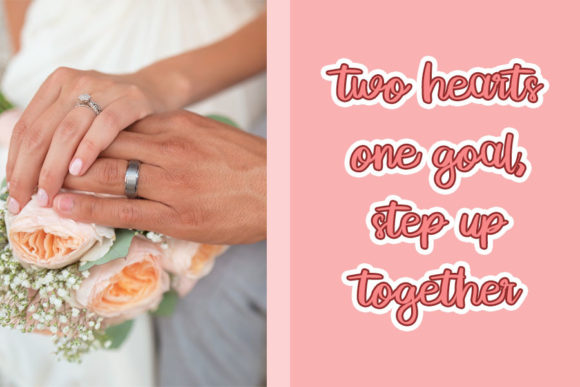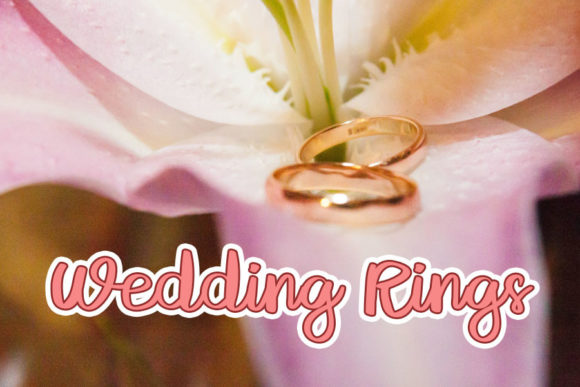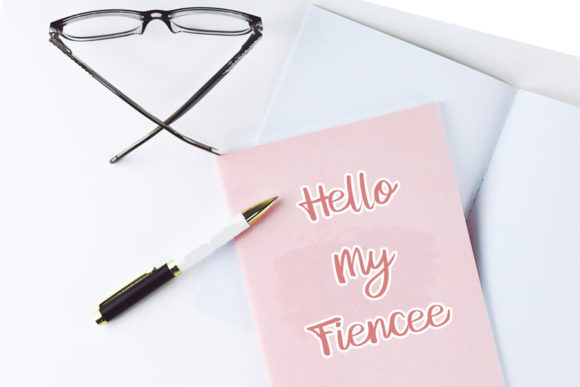
Introduction to Love at First Sight Font
Love at First Sight is a romantic and sweet calligraphy typeface with characters that dance along the baseline.
It has a casual, yet elegant touch It can be used for various purposes such as logos, wedding invitations, headings, t-shirts, letterhead, signage, labels, news, posters, badges and so much more.
Key Features of Love at First Sight Font